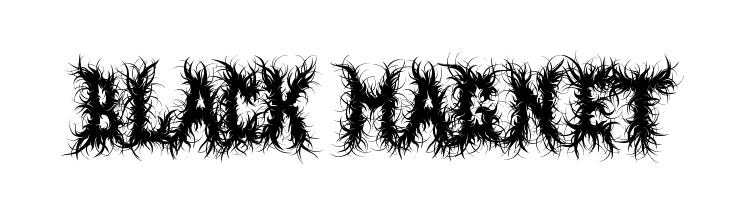
A bold, outlined font with a retro, playful style.
A bold, modern script font with dynamic slanted letters and strong visual impact.
A sleek, modern font with tall, narrow characters and a minimalist design.
A bold, italic, and futuristic font with rounded, slanted characters.
An elegant script font with high contrast and ornate flourishes.
A bold, distressed font with sharp, jagged edges and high contrast.
A playful, handwritten-style font with rounded edges and consistent strokes.
A modern, geometric font with thin strokes and balanced spacing.
A playful, hand-drawn font with a whimsical and energetic style.
A bold, textured font with a hand-drawn chalkboard style.
设计师偏爱 Metalbox, Sulfforest Free Regular, The Copenhagener, INTERPLANETARY Bold Italic and CatalineScript,因为其造型干净、适用范围广—— 从品牌识别到落地页、海报都能胜任。